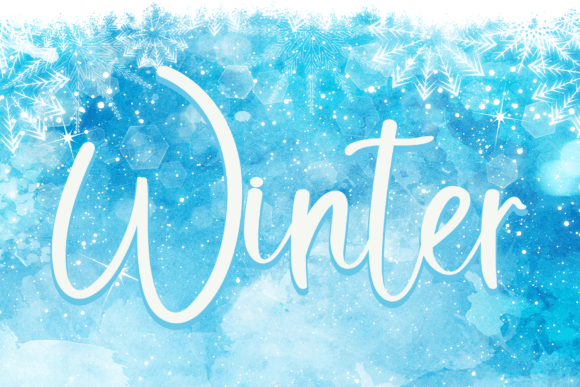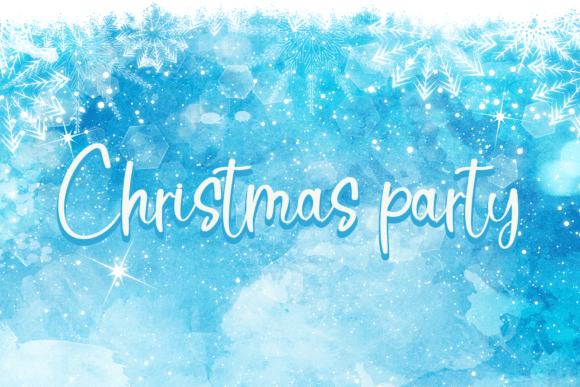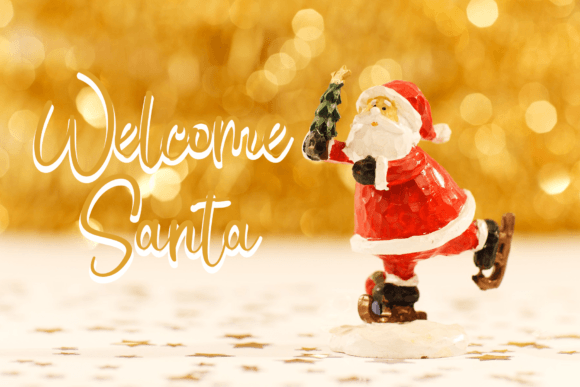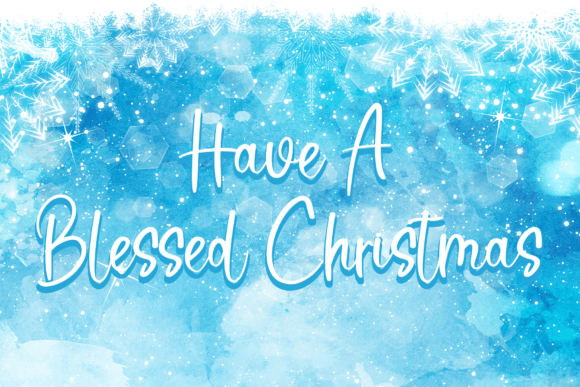
Snow Font Download – Simple Handwritten Script
The Snow Font download is a simple and friendly handwritten typeface created to bring charm and warmth into your projects. With its approachable strokes and casual style, this font is ideal for both personal and professional designs. Whether you’re making greeting cards, crafting presentations, or working on digital artwork, Snow is a versatile option that quickly becomes a go-to font.
A Friendly and Approachable Style
The Snow Font download captures the essence of handwritten simplicity. Each letter is smooth and clear, giving your text a natural, welcoming appearance. This makes it perfect for projects where readability and personality are equally important.
Perfect for Crafts and DIY Projects
Crafters love fonts that feel handmade, and the Snow Font download delivers exactly that. It works beautifully for DIY cards, planners, stickers, and scrapbooking projects. Its simplicity ensures that your designs feel authentic and cozy, while still looking professional.
Great for Digital Designs and Presentations
The Snow Font download is not only great for crafts but also ideal for digital work. It fits presentations, social media graphics, posters, and blogs with ease. Its friendly handwritten look helps your message feel more engaging and relatable.
Readability with Style
Many handwritten fonts sacrifice clarity for artistic flair, but the Snow Font download balances both. Its simple strokes make it stylish without being overwhelming, ensuring your text remains easy to read across different formats and sizes.
Why Choose Snow Font?
Among many handwritten fonts, the SnowFont download stands out with its simplicity, friendliness, and versatility. It is suitable for casual DIY projects as well as professional designs, offering flexibility for a wide range of creative uses.
Add Warmth to Your Designs
Typography sets the tone of your work, and the SnowFont download helps you add warmth, charm, and simplicity. Whether for digital designs, crafts, or personal projects, this font ensures your work looks friendly and inviting.